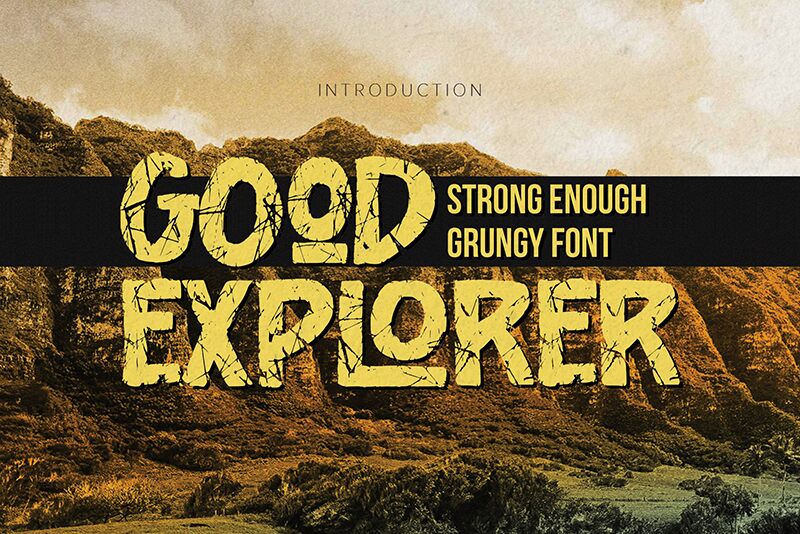
Good Explorer is a bold display font designed by Anang F and Malik Wsn from Gassstype Studio. Its eroded style gives it an adventurous and rugged look, perfect for creative projects that explore new frontiers. From logos to posters, Good Explorer brings a sense of mystery and adventure to your design work. It's great for titles, headlines, branding and more!